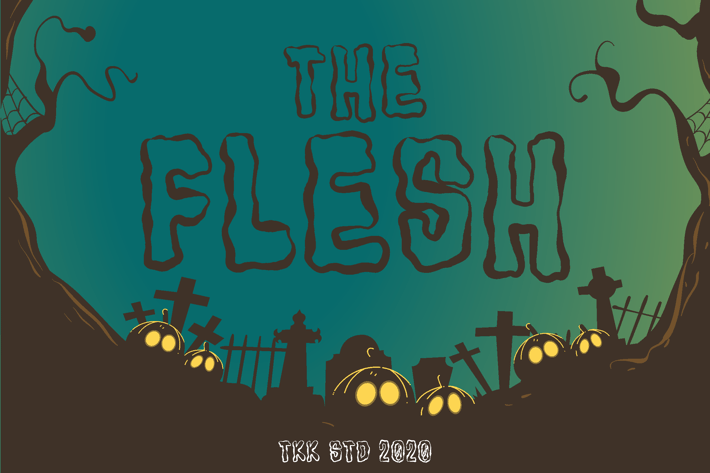
The Flesh - Horror Spooky Font
The Flesh - Horror Halloween Display Font
Enter the realm of fear with The Flesh, a haunting display font crafted for horror lovers, spooky storytellers, and Halloween fanatics. Its jagged lines and distorted anatomy give it an unsettling vibe—perfect for posters, thriller titles, haunted party invites, YouTube thumbnails, and eerie merch.
Whether you're summoning ghosts or teasing your next horror story, The Flesh is your go-to font for creating visual chills and goosebumps.
Why You'll Love The Flesh
Distorted Horror Style – Uneven, creepy shapes that scream horror
Bold Readability – Makes every scary word stand out
Perfect for Halloween – Tailored for spooky seasons and themes
Works Everywhere – From digital graphics to physical packaging
Ideal For:
Halloween posters, flyers & party invites
Horror movie titles and YouTube thumbnails
Haunted house promotions
Spooky game UIs or mobile apps
* Thriller book covers or merch